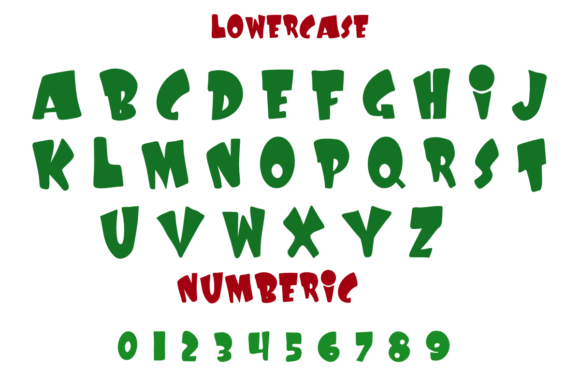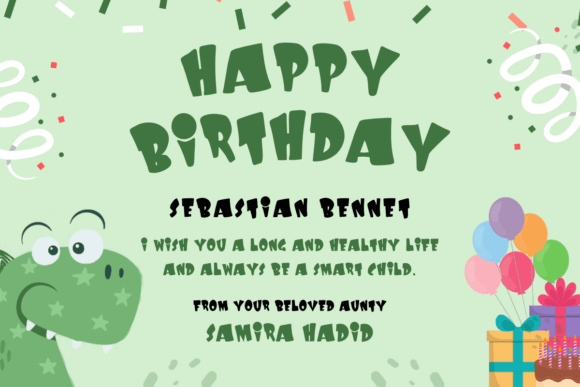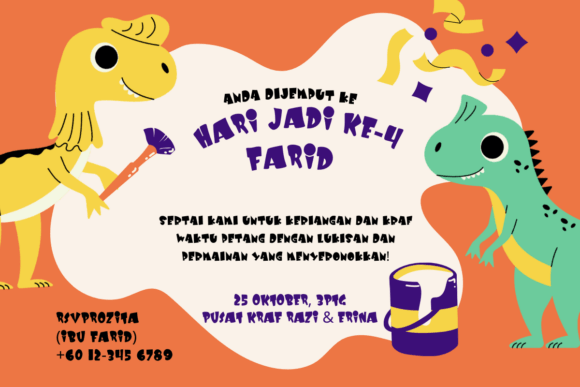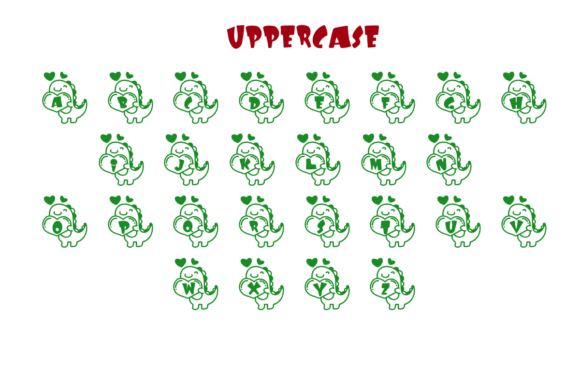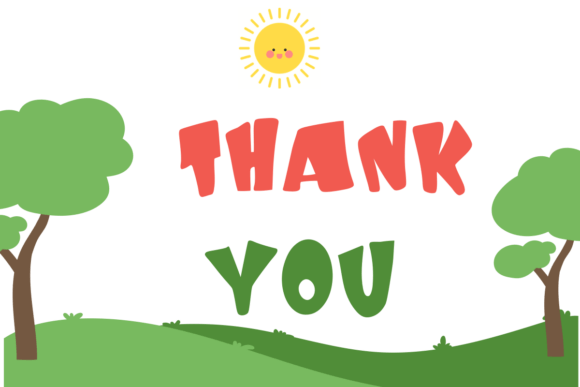
Introduction to Love Dinosaurs Font Font
Fonts play a crucial role in design, and the Love Dinosaurs Font font is a typeface that brings both character and versatility to any project. Whether you’re working on a branding project, a website, or a print design, the Love Dinosaurs Font font offers a unique style that can elevate your work.
Love Dinosaurs is a decorative font that captures the imagination and brings a joyful, prehistoric twist to creative projects.
Its playful design, combined with unique details and a friendly appearance, makes it ideal for engaging designs aimed at children and those who enjoy a fun, light-hearted aesthetic .
Key Features of Love Dinosaurs Font Font
Why Choose Love Dinosaurs Font Font?
The Love Dinosaurs Font font is more than just a typeface – it’s a design tool that helps you communicate your message with style and clarity. Its unique character set and versatile design make it suitable for a wide range of applications, from elegant invitations to bold headlines.
With its carefully crafted letterforms and balanced proportions, the Love Dinosaurs Font font ensures readability and visual appeal across all mediums.
What makes Love Dinosaurs Font font special?
The Love Dinosaurs Font font stands out with its unique design, exceptional readability, and versatility across various design applications.